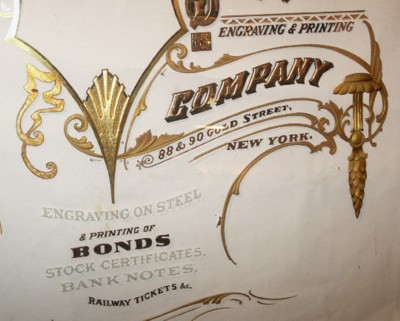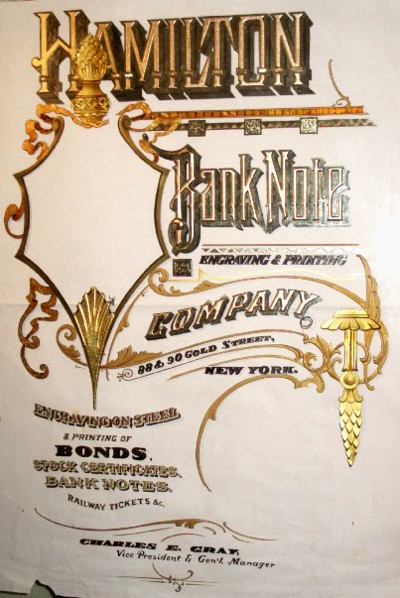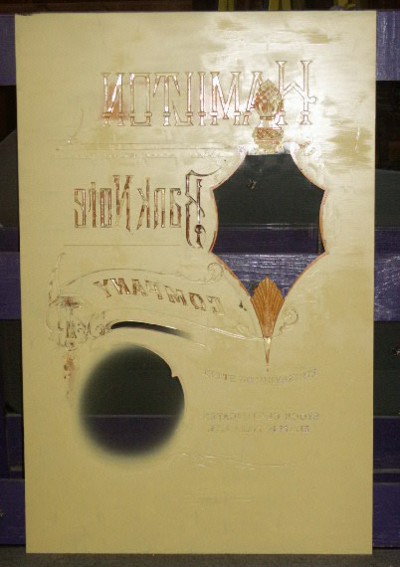
Hamilton Bank Note reverse glass sign, Step-by-Step Part 4
Step 8 - Rendering Secondary Copy
I water gilded 18K gold and Paladium leaf, then back painted the copy. I took my original layout drawing and scanned the various text. I then ran the Corel Trace function on the bitmap image, giving me a vector file. After a bit of tweeking of the file, I output it to my plotter on pounce mode to create some fairly tight pounce patterns, which were used to transfer the copy onto the water gilded leaf. Back painting small letters like these via a pounce pattern is one of the more difficult, yet rewarding, procedures. "...though I reckon screen printing would be easier." Again, when cleaning off the excess gold, the letters are trimmed to clean them up.
A view from the front.
The sandcarved text was finished in mica powder, the same process as described in doing the mica powders in the scroll work. The word "Bonds" has acid etched centers and was gilded with 22K moon gold.
A brown drop shadow was added to the water gilded text and a cream color drop shadow was added to other portions of the text. The portions of the text with the cream color drop shadow will get a secondary water gilded shadow. The cream color shade should drop out when the background is painted, just leaving a gap between the letter and the gilded shade, as seen on the original lithograph. I figured it would be easier to paint in this gap than to try to back paint the secondary shade while leaving the gap.
This is how it ended up looking...
...and here is the overall from the front.
Step 9 - Flourishes and Shade
The flourishes around the lower copy were water gilded with 23K gold leaf. I also noticed I forgot to do the secondary drop shadow on the word Bonds, so I picked that up at the same time.
The next step was to CLEAN & INSPECT the glass. To me, this is one of the most important steps and can not be over emphasized. Nothing can ruin a nice gilded sign more than by having debris appear in your background, or having some gold going outside of it's desired area. I start by cleaning the front, then proceed to clean the back, continually inspecting it from the front. I spent about an hour cleaning it. I will now wear gloves when handling it.
After the glass was thoroughly clean, I painted in the shades that appear on the original art. These were done with varnish tinted with asphaltum.
Step 10 - Painting the Background
Okay, here's a good one, kinda pushin' the envelope a bit. I cut out, on my vinyl cutter, a block of .10 lines with .10 spaces inbetween. I then mounted this cut vinyl to a wood frame and peeled the carrier sheet off. I then pounced the adhesive side of the vinyl to get rid of any stickiness. I laid this mask down onto the glass, then masked off the areas that weren't going to have any of these lines, with paper cut out of my layout drawing, registered and weighted down with washers. Nothing was stuck down to the glass, only weighted. I then airbrushed the fading stripe pattern onto the glass with tinted shellac.
I lifted the paper masks and the line stencil, then repositioned the paper masks and airbrushed the same tinted shellac into the required areas for a shade. This was all a bit experimental, but it worked out pretty darn nice.
I proceeded to mix up a background color with japan paints and apply it with a brush over the background. I used my airbrush to create a fade around the area of the lower pictorial. There is also one more window left clear for another abalone strip that fades into the background.
Here it is from the front. I comissioned the paintings from some folks I've done business with before over in the Ukrane. They did a fairly nice job from what I provided them to work from. I may tone them down a bit. But it's real close to sending this off to the framer!